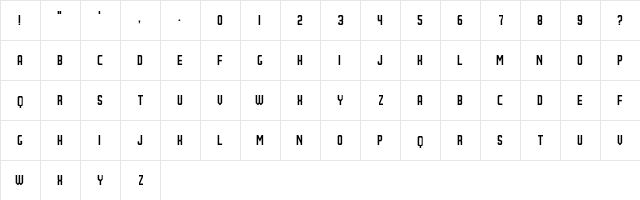
Party Lights [WLM] Flat Regular
| Designer | Wolf Lambert |
Party Lights [WLM] Flat is a composed and adaptable typeface that performs quietly and consistently across a wide range of design contexts. Its slender proportions lend an understated elegance to any composition.